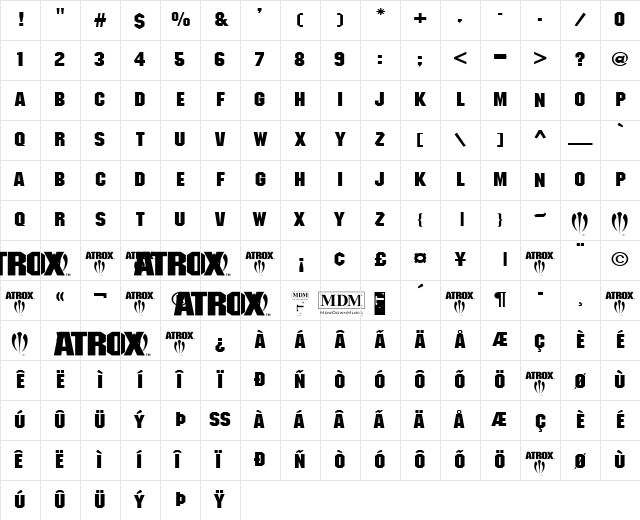
Complete ATROX normal glyph index. Displaying only characters natively supported by ATROX normal font.
ATROX is a composed and adaptable typeface that performs quietly and consistently across a wide range of design contexts.